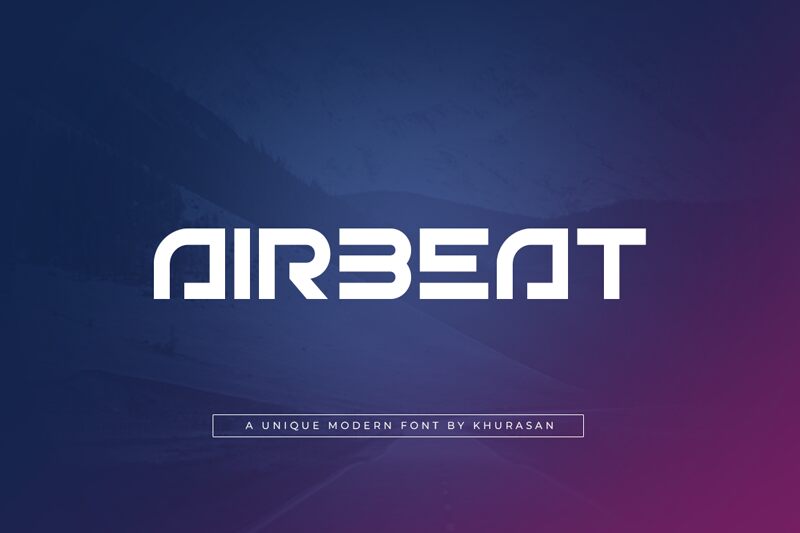
Airbeat
Airbeat, the futuristic display font designed by Khurasan, is perfect for projects that demand a bold and innovative look. Its semi-bold weight and expanded width make it ideal for catching the eye of your audience. Whether you're designing a tech startup's logo or creating bold headlines for a science fiction magazine, Airbeat has got you covered. This versatile font typeface is also suitable for movie posters, videogame titles and album covers. The clean lines and sleek curves of Airbeat will add a modern touch to any project that requires an edgy and avant-garde style.